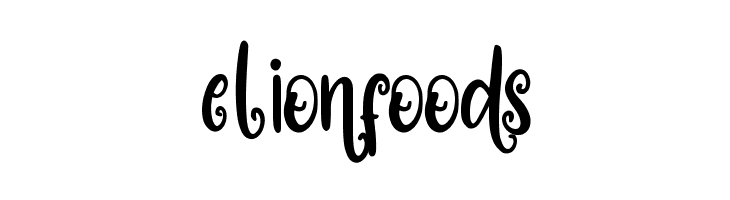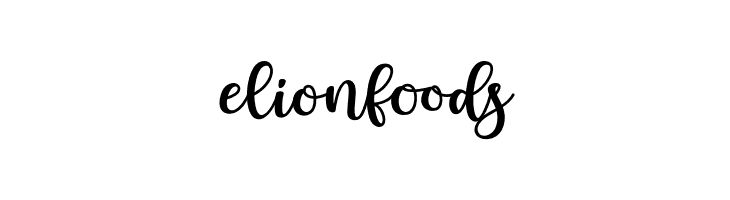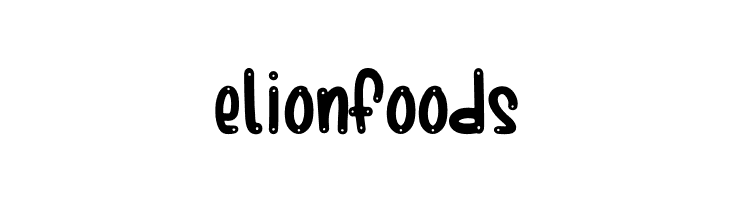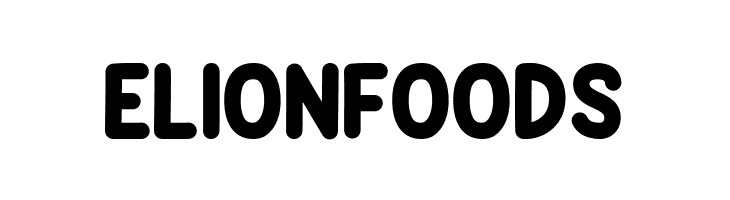
A bold, playful script font with a festive, dynamic style.
A playful, festive font with decorative, handcrafted elements.
A playful, curly font with bold strokes and decorative swirls.
A festive, handwritten script font with a playful and elegant style.
A playful and festive font with smooth, flowing curves and a hand-drawn quality.
A playful, hand-drawn font with snowflake-like embellishments and a bold, rounded style.
A festive, tree-shaped font perfect for holiday designs.
A playful, bold, and rounded font with a friendly and approachable style.
A festive, decorative font with holiday light details on each character.
A festive, snowflake-adorned font perfect for holiday-themed designs.